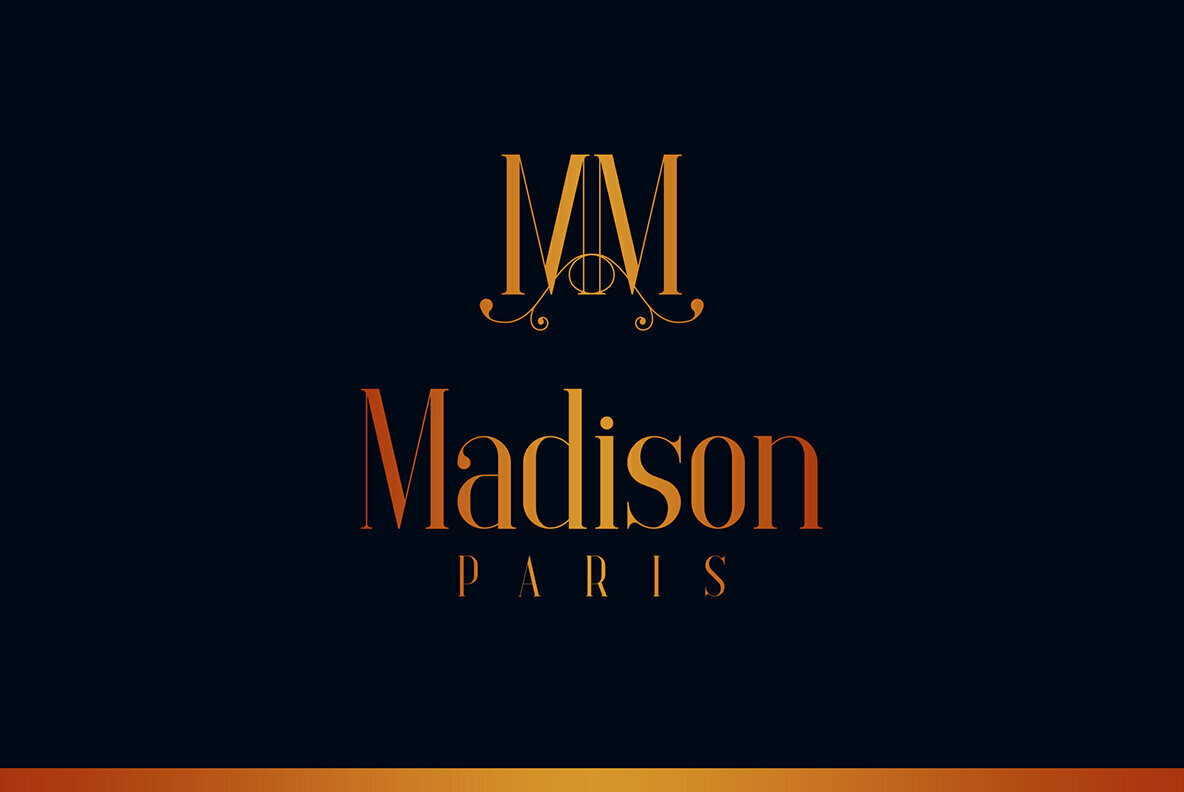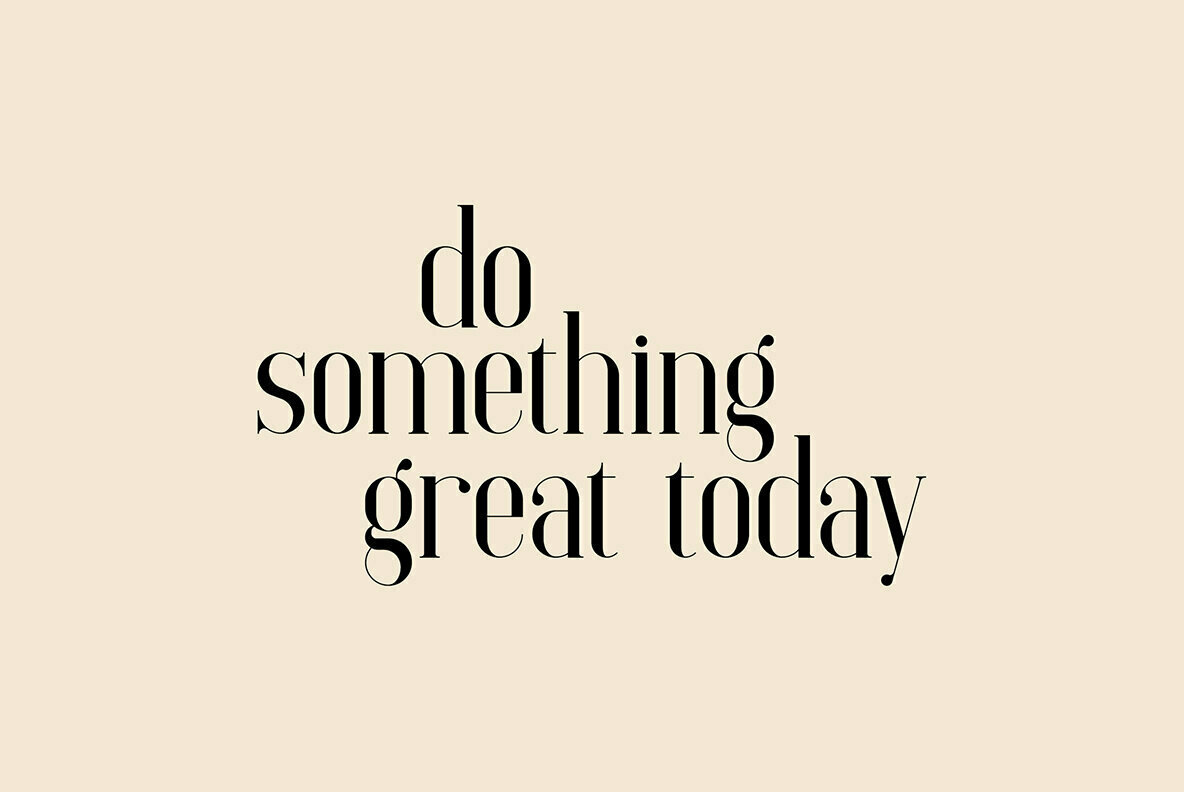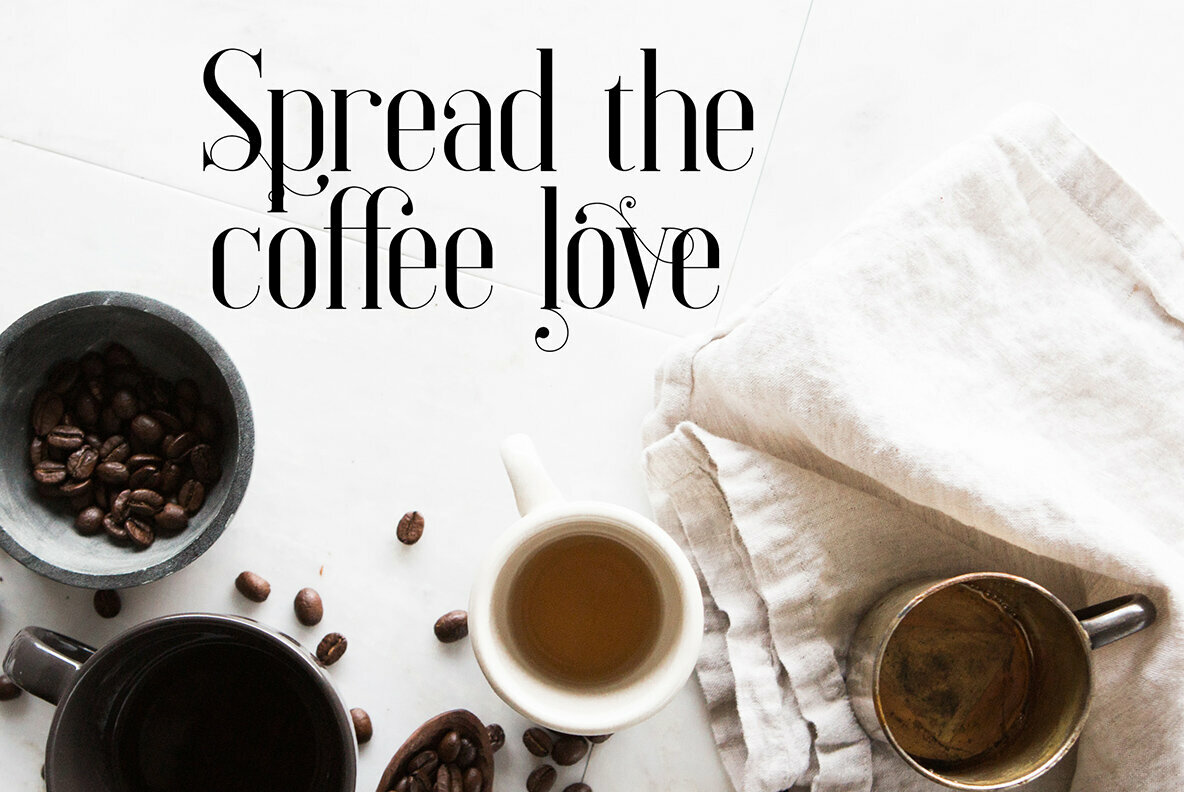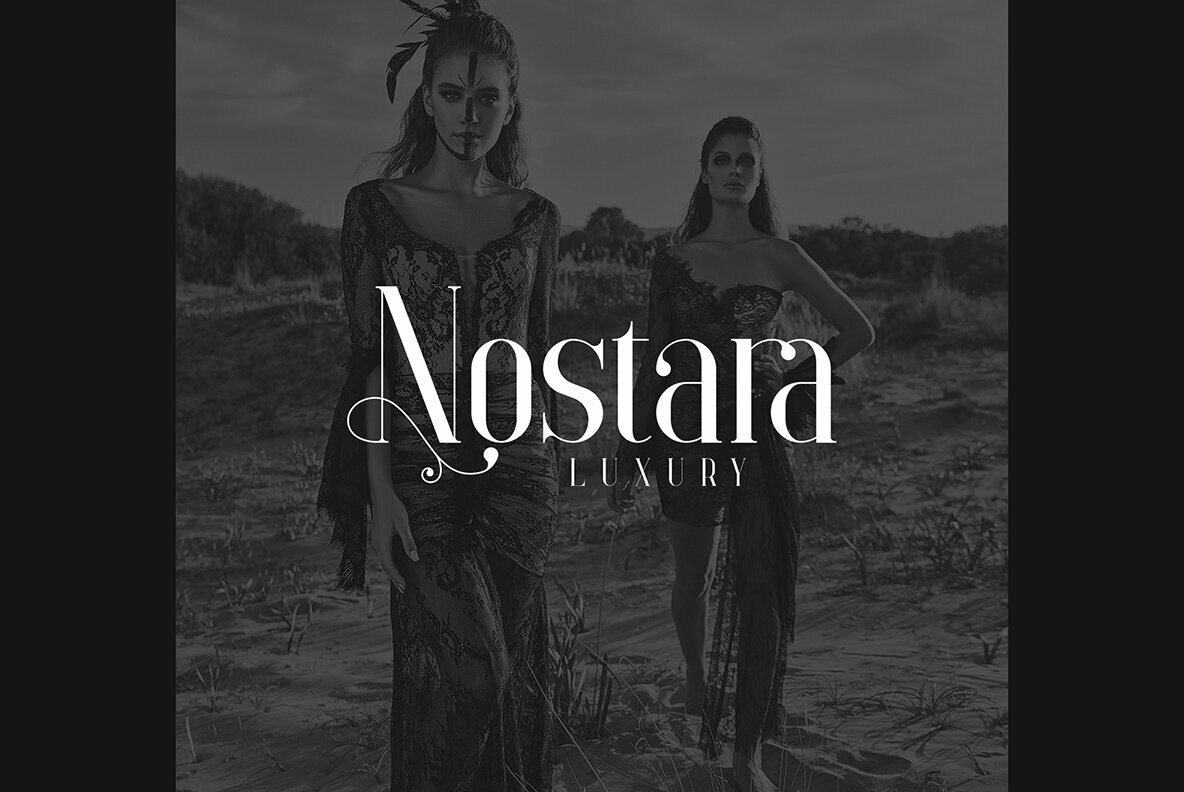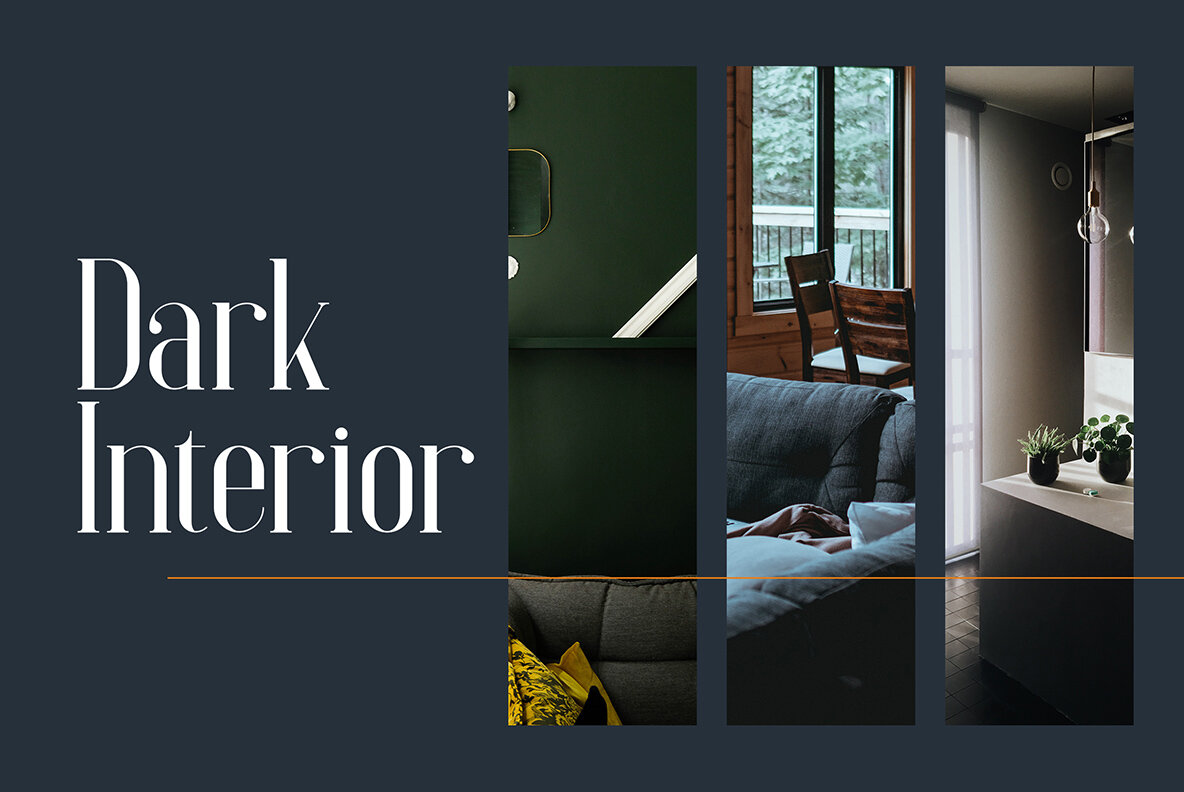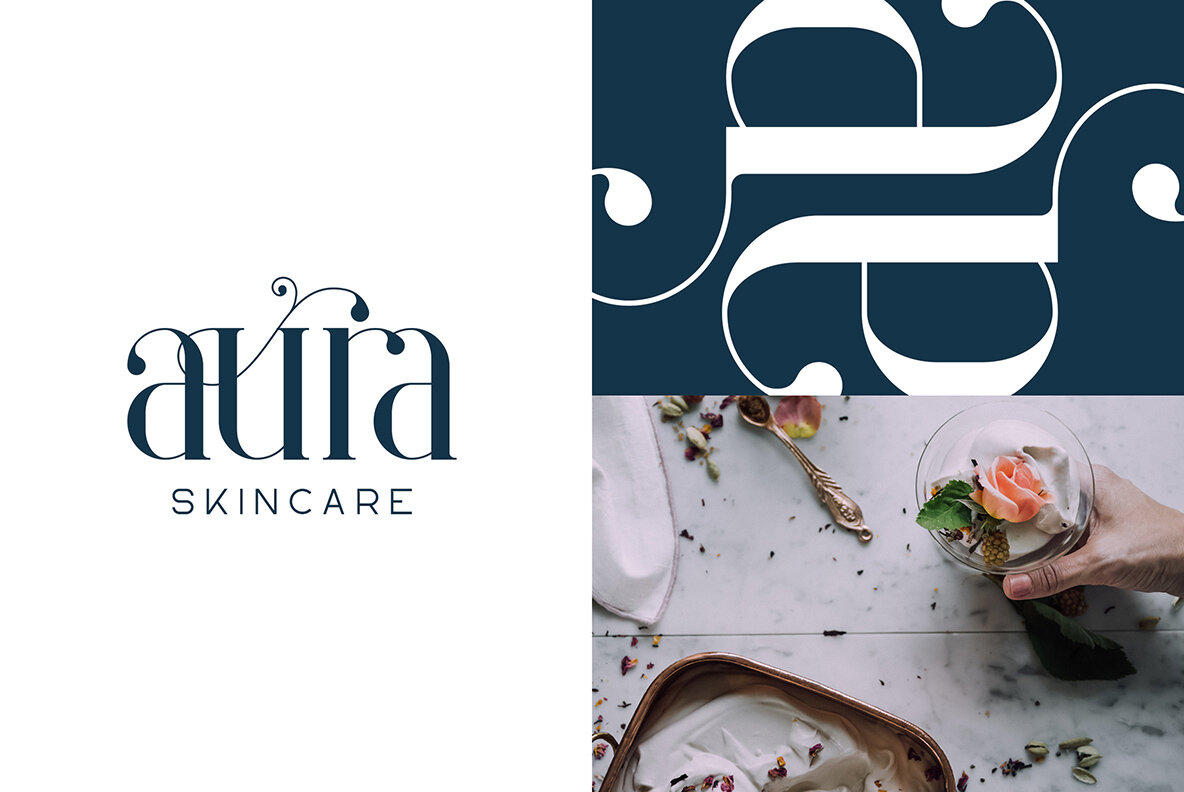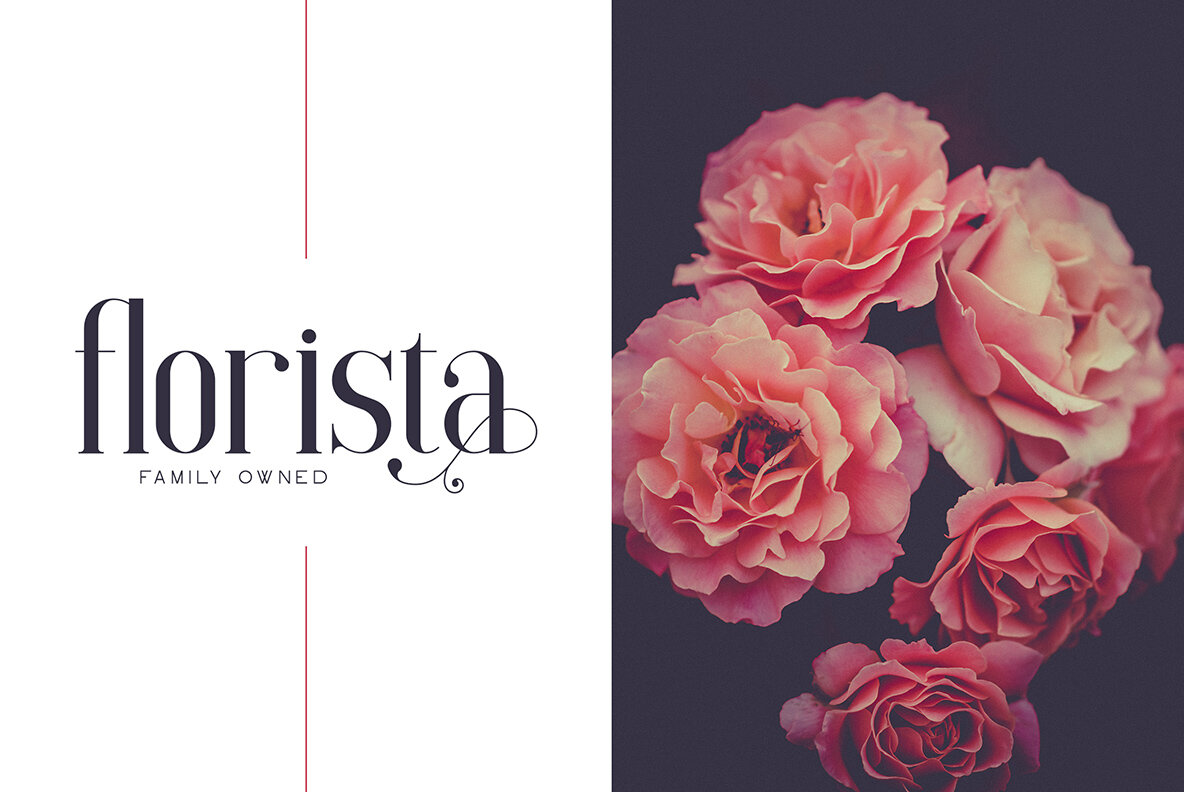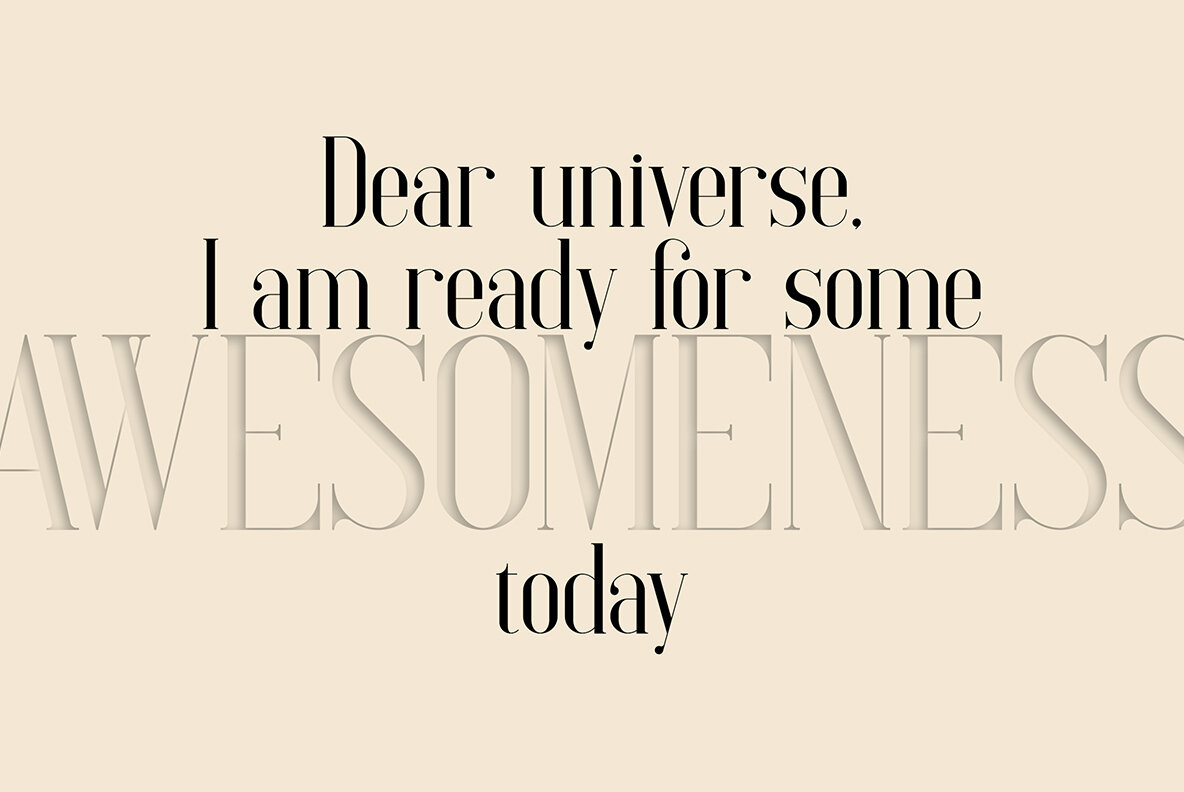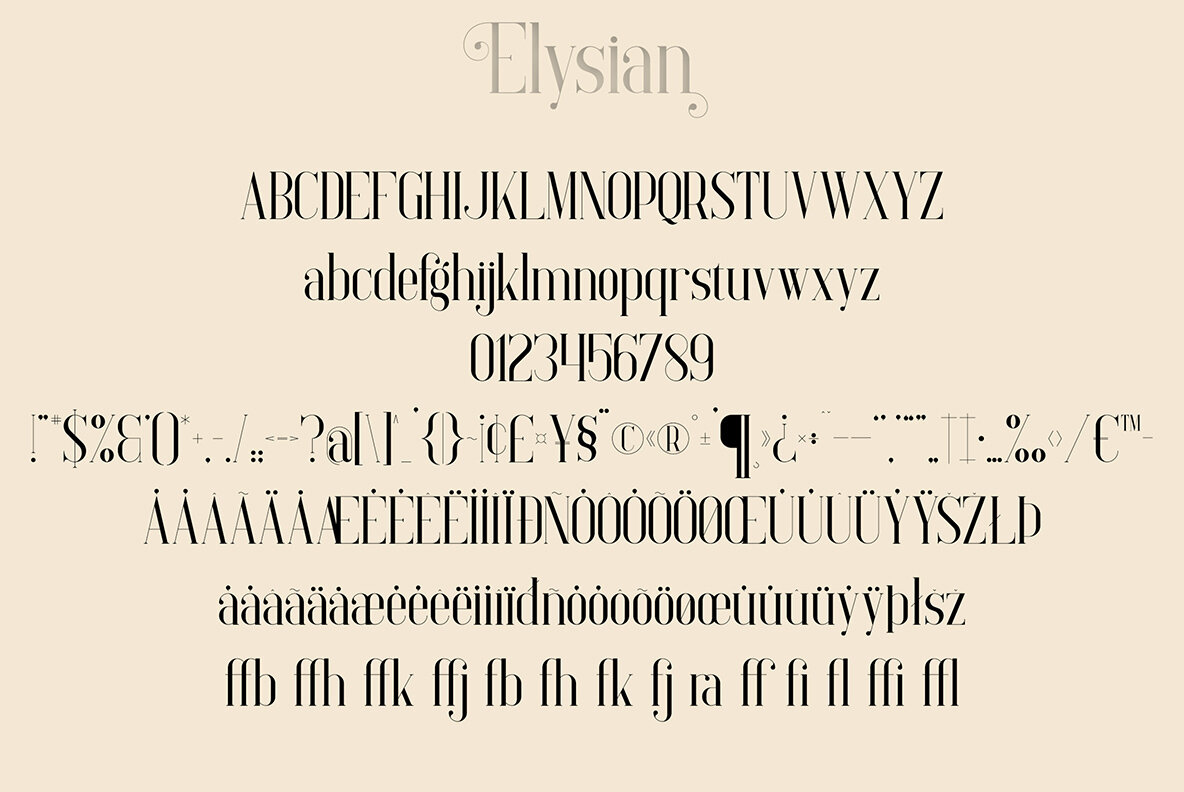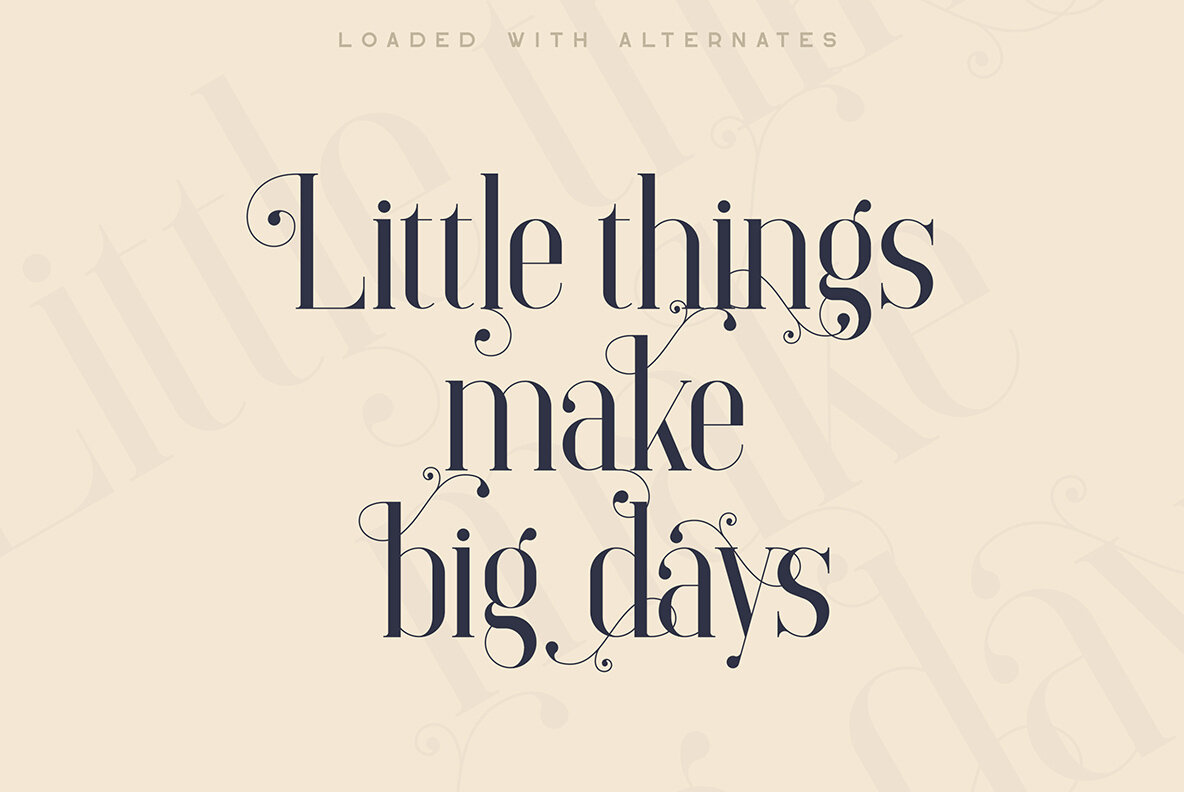
Elysian Font
Elysian
Elysian serif typeface embodies a vintage charm with its elegant details and a range of alternate glyphs and ligatures. This font is designed to accommodate a multitude of applications, from bold headlines to subtle body text, maintaining readability and sophistication at any size. The font's style is particularly suited for branding endeavors, packaging designs, and editorial headers, providing a stylish overlay to any backdrop. Elysian's flexibility also includes extensive multilingual support, making it a fitting choice for diverse projects worldwide. Features: In Adobe InDesign or Illustrator, navigate to Window > Type & Tables > Glyphs. For Photoshop, select Window > Glyphs, then click the Show menu and choose Alternates for Selection. Swap out glyphs by double-clicking on an alternate's thumbnail.Elysian: A Vintage Serif with Elegant Versatility